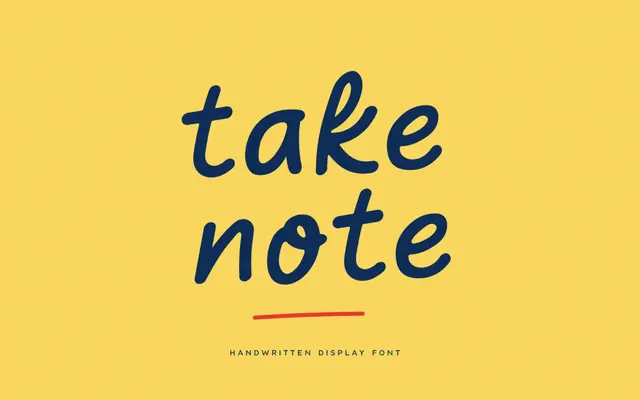
Take Note specimen from Colt Type
A casual handwritten display script with ligatures and stylistic alternates designed for logotypes, blog headings and social media use.
A playful single-weight handwritten script that uses ligatures and stylistic alternates to produce a natural, flowing feel. Suited to logotypes, blog headings and short decorative text where informality and personality are wanted. Featured in the Typodarium 2022.
A casual handwritten display script with ligatures and stylistic alternates to simulate natural handwriting variation. The foundry categorises it as Craft Handwritten Display.